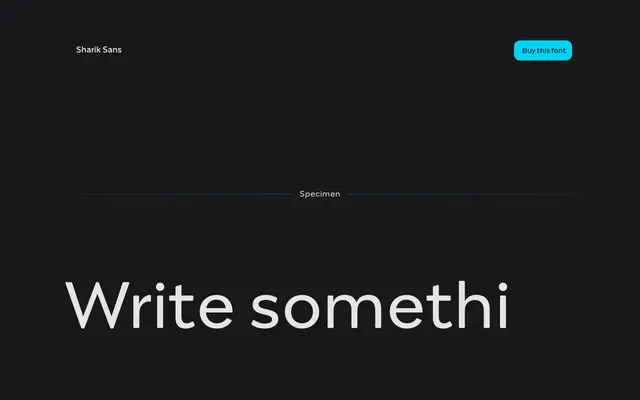
Sharik Sans
A nine-weight humanist sans by Michał Jarociński with calligraphic detailing that becomes most apparent at display sizes.
Designed by Michał Jarociński and named after a dog character from a favourite TV series, Sharik Sans is a humanist sans with subtle calligraphic touches in its terminals and details. The family spans nine weights from Thin to Black, each with a matching italic, for a total of 18 styles. OpenType features include small capitals, a wide range of numeral styles, fractions, ordinals, alternates and ligatures, and the family is intended to complement Jarociński's serif-influenced typeface Clavo.
Described as a sans serif with a calligrapher's touch in its subtle details and endings, placing it firmly in the humanist sans tradition where pen-drawn influences inform letterform construction.